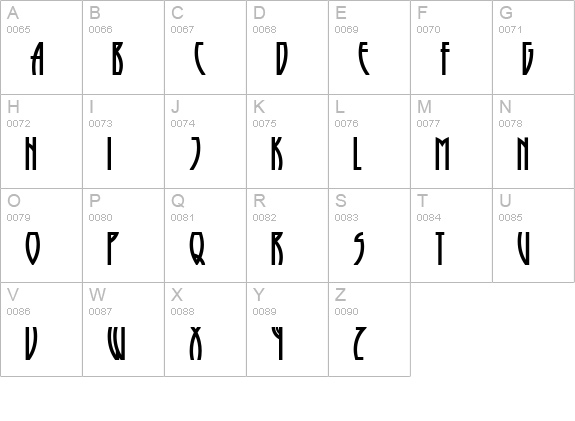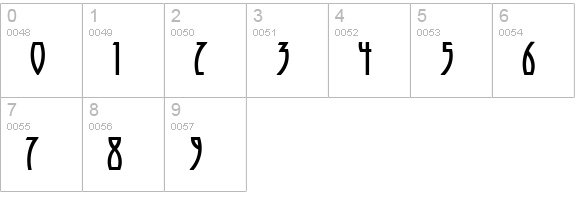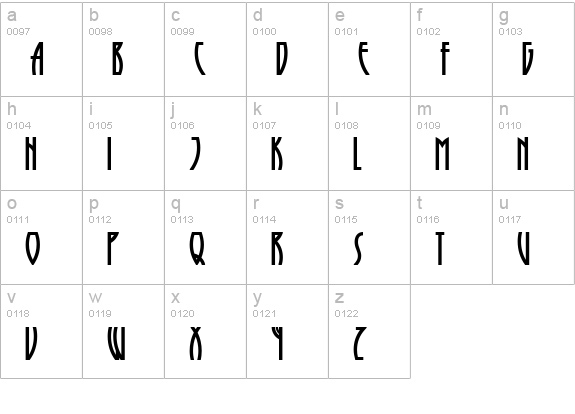
Runy Tunes Revisited NF is a stunning and unique font that combines elements of modern design with a nostalgic touch. This font features intricate patterns and bold strokes that make it perfect for eye-catching headlines, posters, and branding projects. Its versatility allows it to be used in a variety of design settings, from digital to print. What sets Runy Tunes Revisited NF apart is its free-spirited energy and playful charm, making it a standout choice for designers looking to add a touch of whimsy to their work. The font's dynamic shapes and lively curves give it a sense of movement and rhythm that is sure to captivate audiences. Best of all, Runy Tunes Revisited NF is available for free download at FontsMarket.com, making it easily accessible to all designers looking to elevate their projects with a touch of creativity and personality. Don't miss out on this exciting font that is sure to bring a fresh and vibrant energy to your designs!